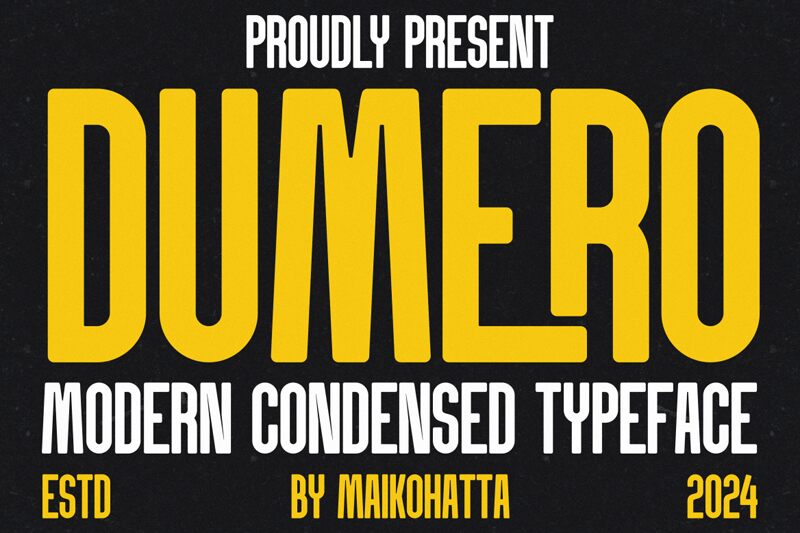
Dumero Rounded font family is a modern sans serif typeface from Gilang Ternadho featuring well-designed minimalist characters. Available in 6 font styles, the font family looks as if it is all made of geometric shapes, making it structured, serious, and contemporary. The font’s assertive presence comes primarily from its clean lines, which may be mixed with round edges and smooth curves in some characters. These are especially visible in larger point sizes.
Dumero rounded was designed with impact and technical clarity for a variety of applications. It will work in magazines, posters, book covers, and album covers. Any other coverage of visual communication and branding can be enhanced with it, whether it’s an application for a coffee shop, product label, browser game, visual novel, or anything else with an interface or button interactions.